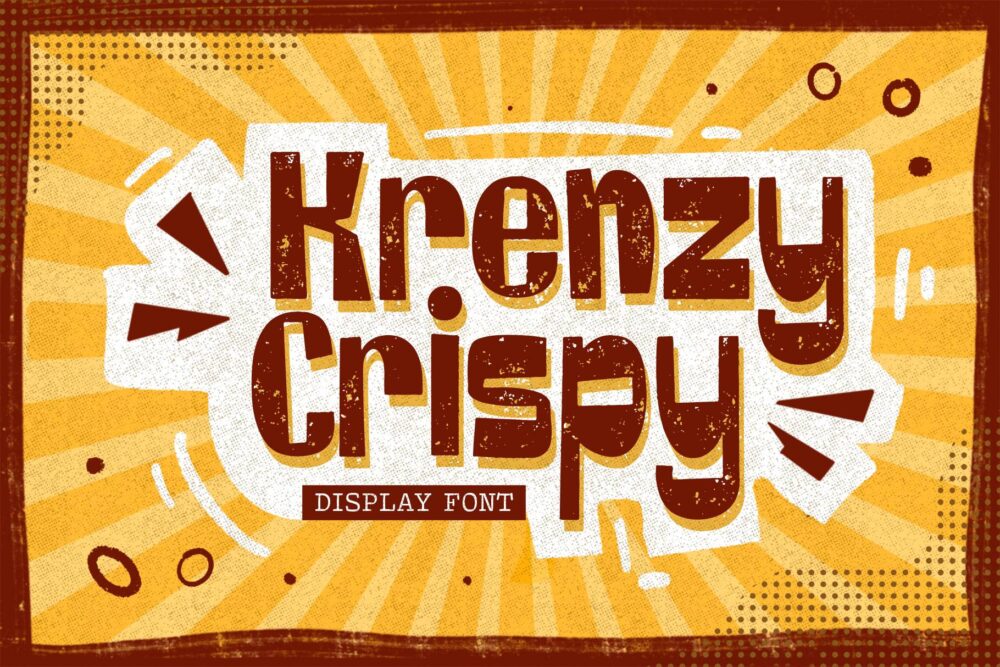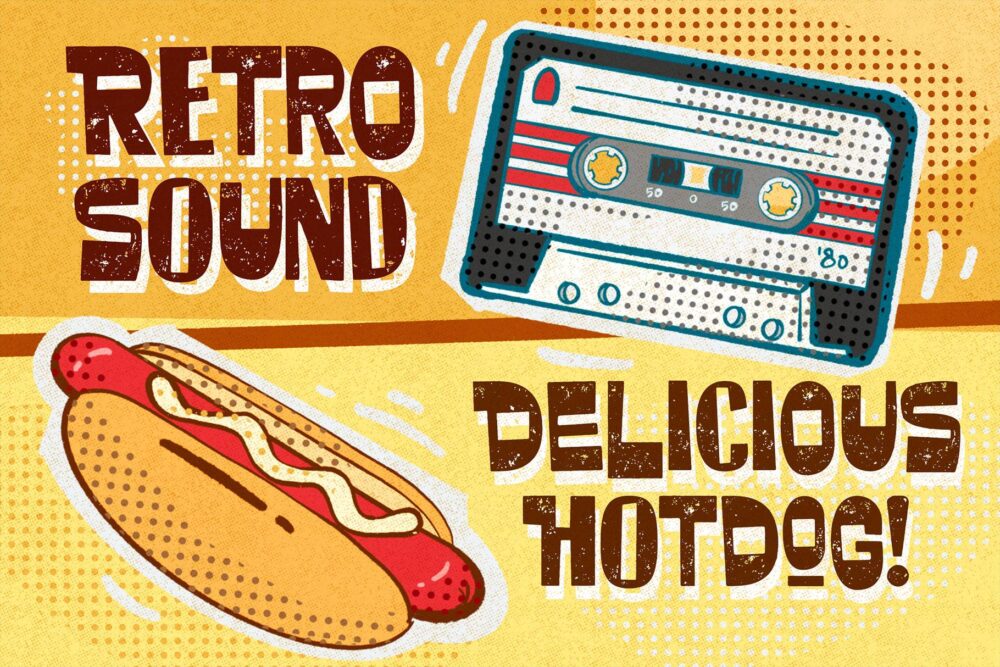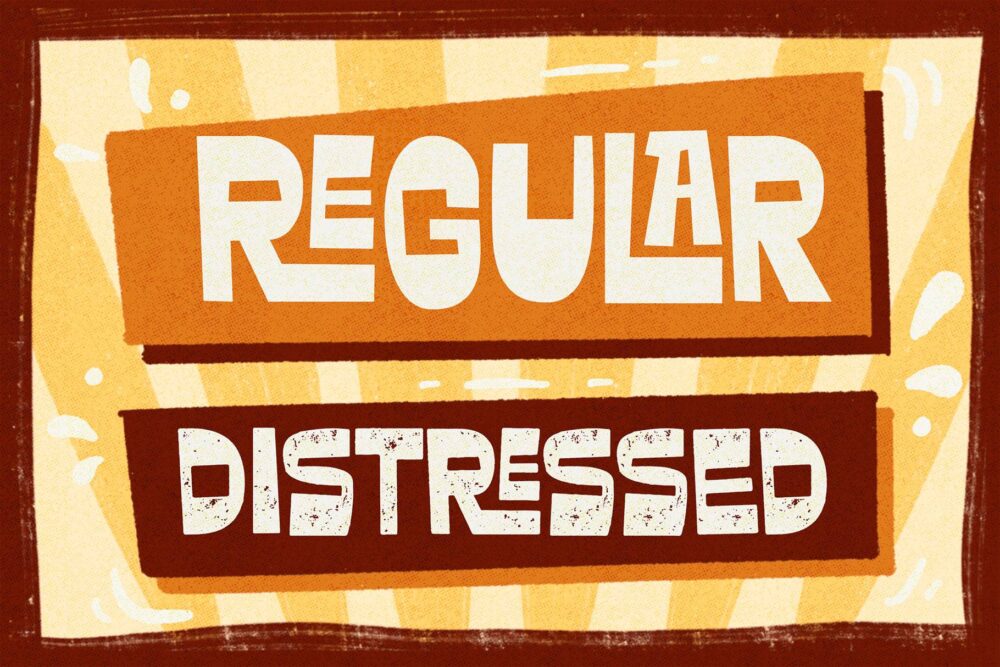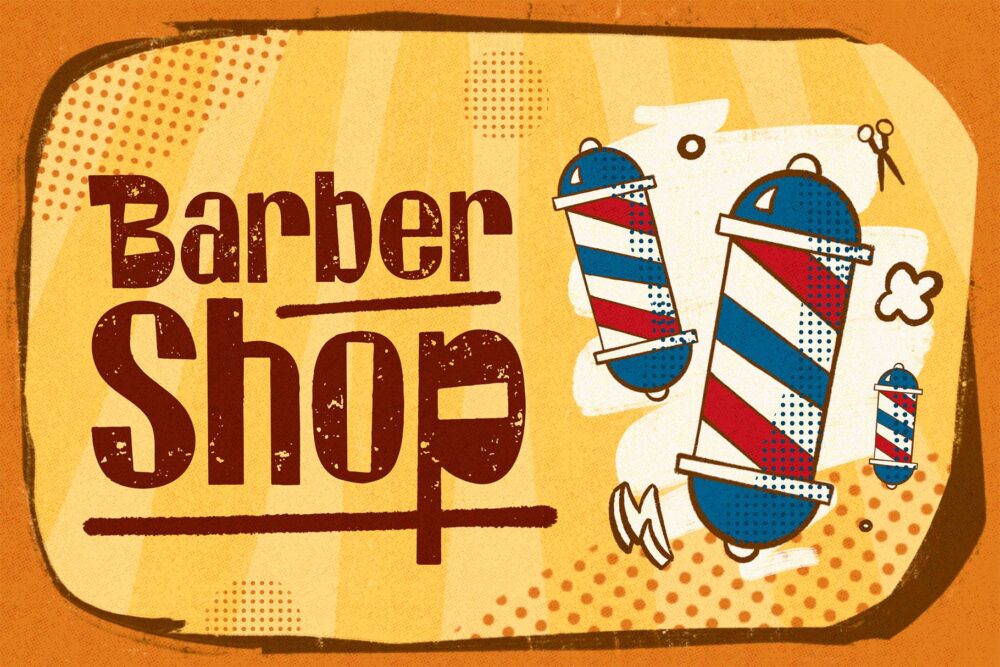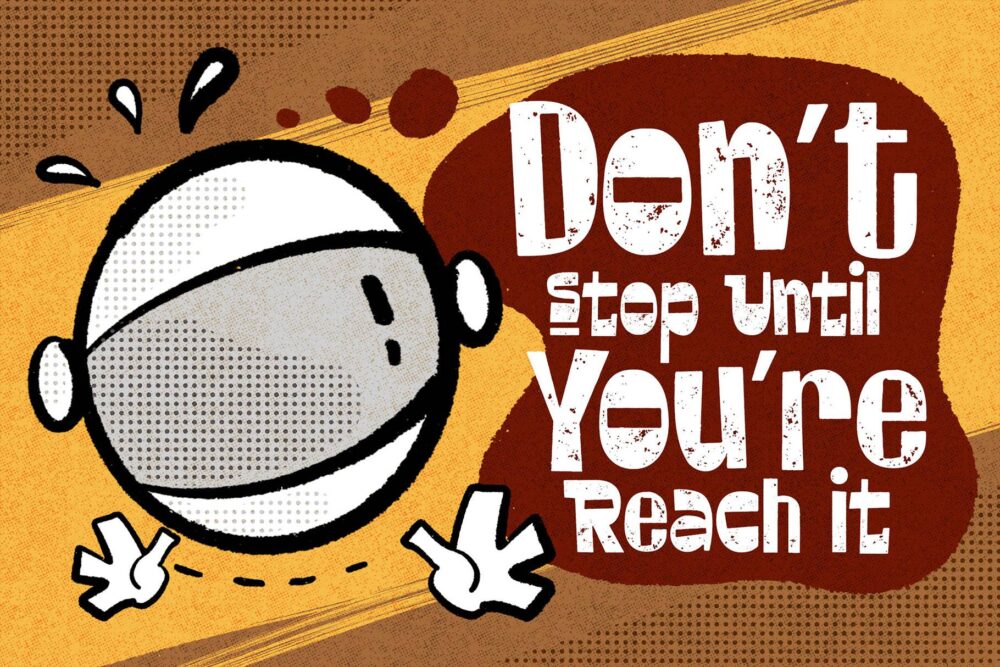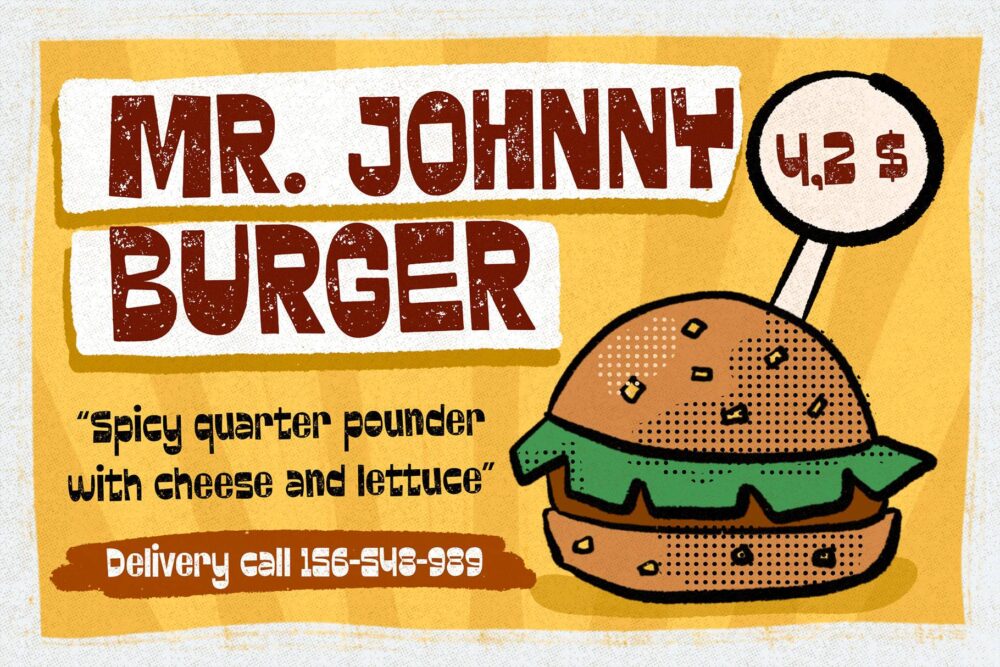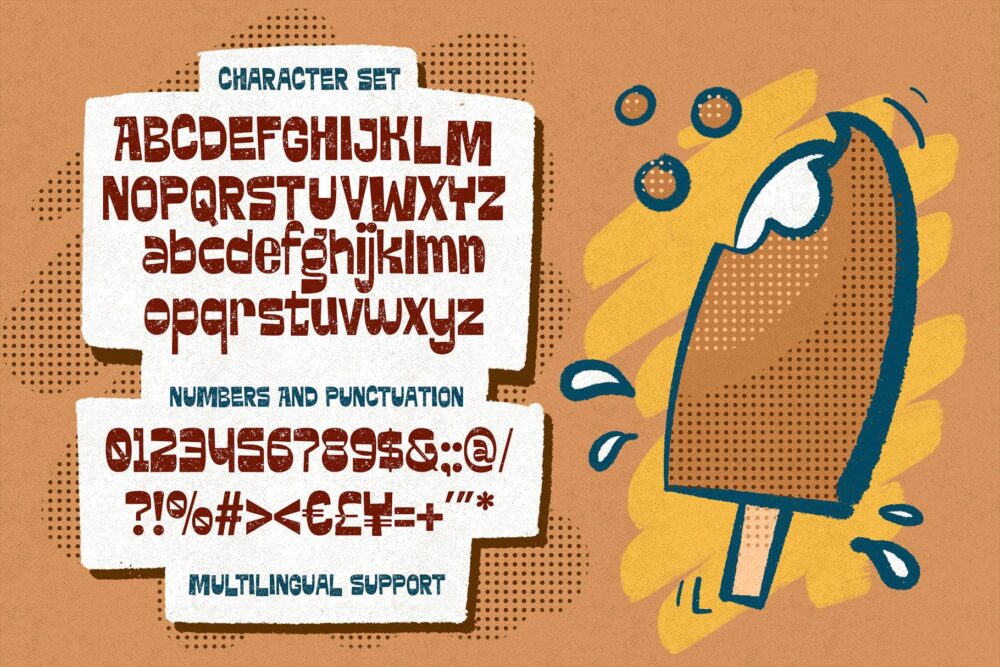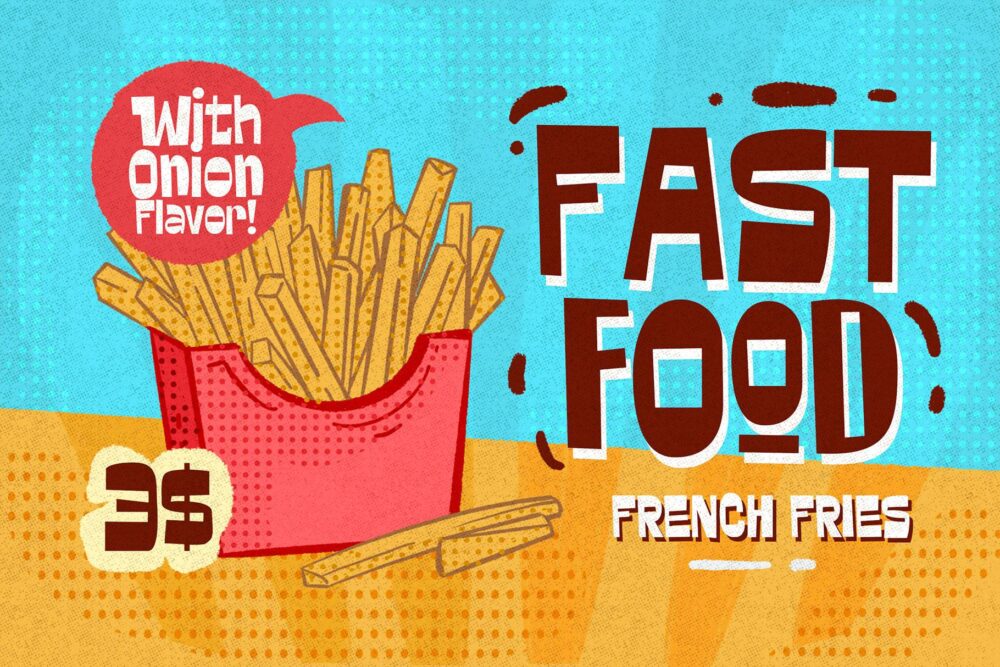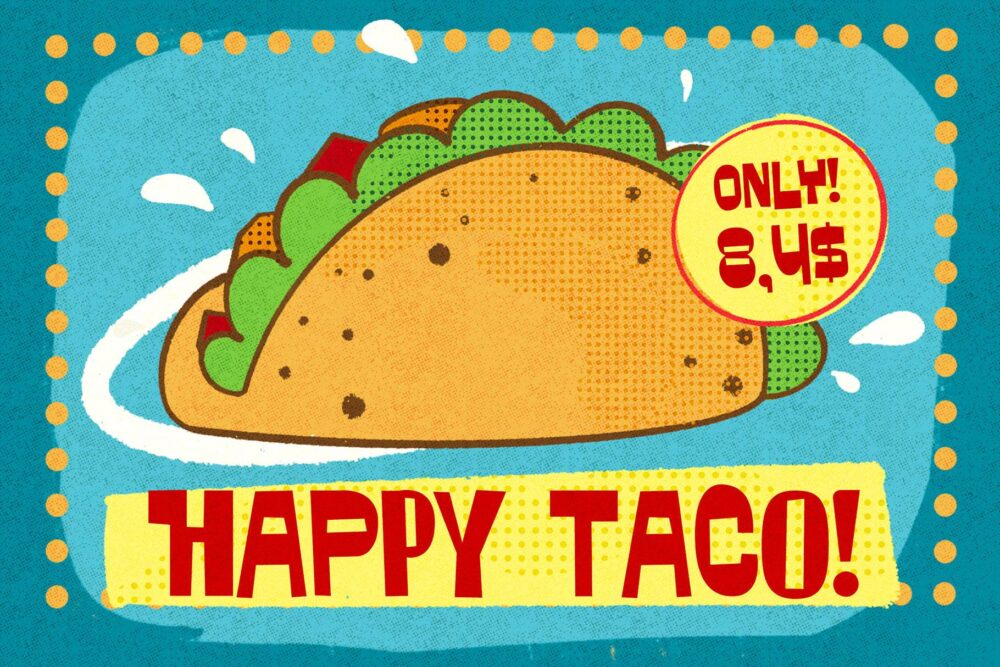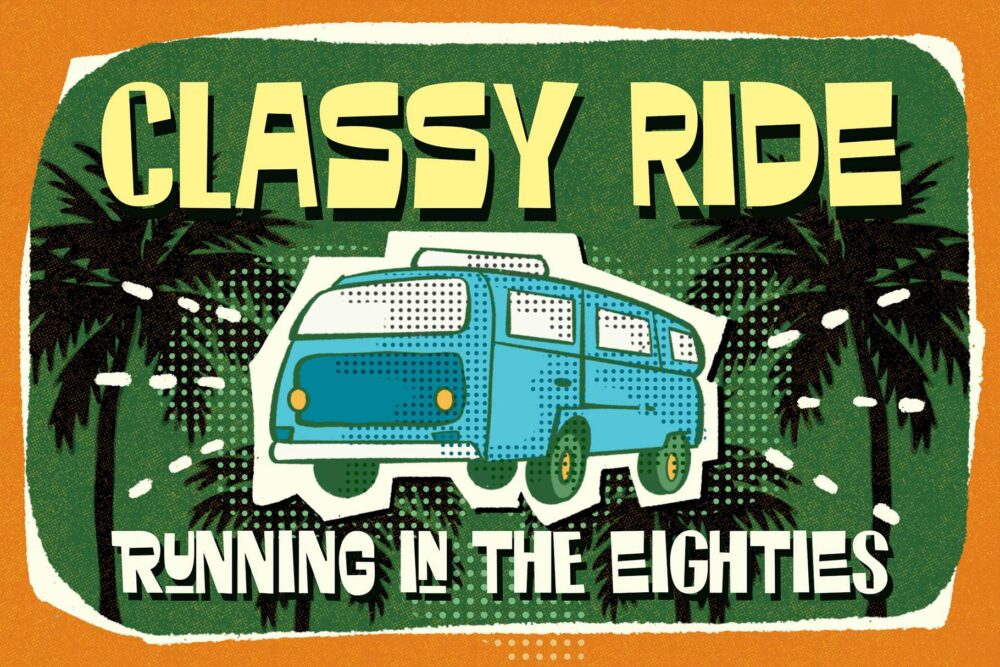
Krenzy Crispy is crunchy, delicious, and playful! Inspired by the typography in the packaging snack. This font gives you a yummy impression that keeps you hungry! Krenzy Crispy is perfect for food design, snack packaging, posters, comics, logotype, labels, decals, display, and more!
Designed with 2 styles: Regular & Distressed, Krenzy Crispy also has a retro feel that you can apply to vacation themes, beach, and retro events. Equipped with a lot of alternate characters, playful ligature, and multilingual support that allows you to create hand-drawn typography!